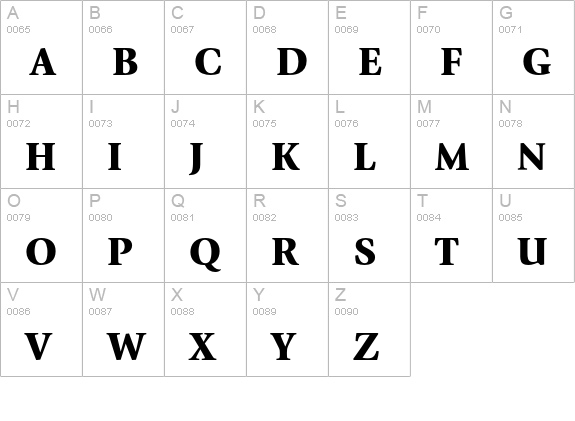
GiovanniEF-Black Font Details
GiovanniEF-Black is a maximum-weight, dramatic variant in the GiovanniEF typeface family \xE2\x80\x94 well suited to maximum-impact headlines, posters, and packaging.
GiovanniEF-Black font is a bold and stylish typeface that exudes sophistication and elegance. Its sleek and modern design makes it perfect for a wide range of projects, from branding to advertising to editorial design. With its sharp lines and distinctive letterforms, GiovanniEF-Black commands attention and adds a touch of class to any text. The best part? GiovanniEF-Black font is completely free to download at FontsMarket.com. You can easily add this versatile typeface to your collection without breaking the bank. Whether you're a designer looking to elevate your work or a business in need of a polished font for your marketing materials, GiovanniEF-Black is sure to impress. Download it today and take your projects to the next level!